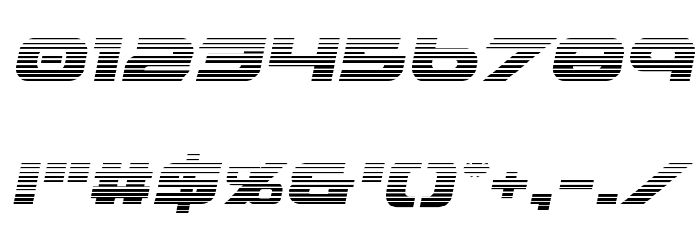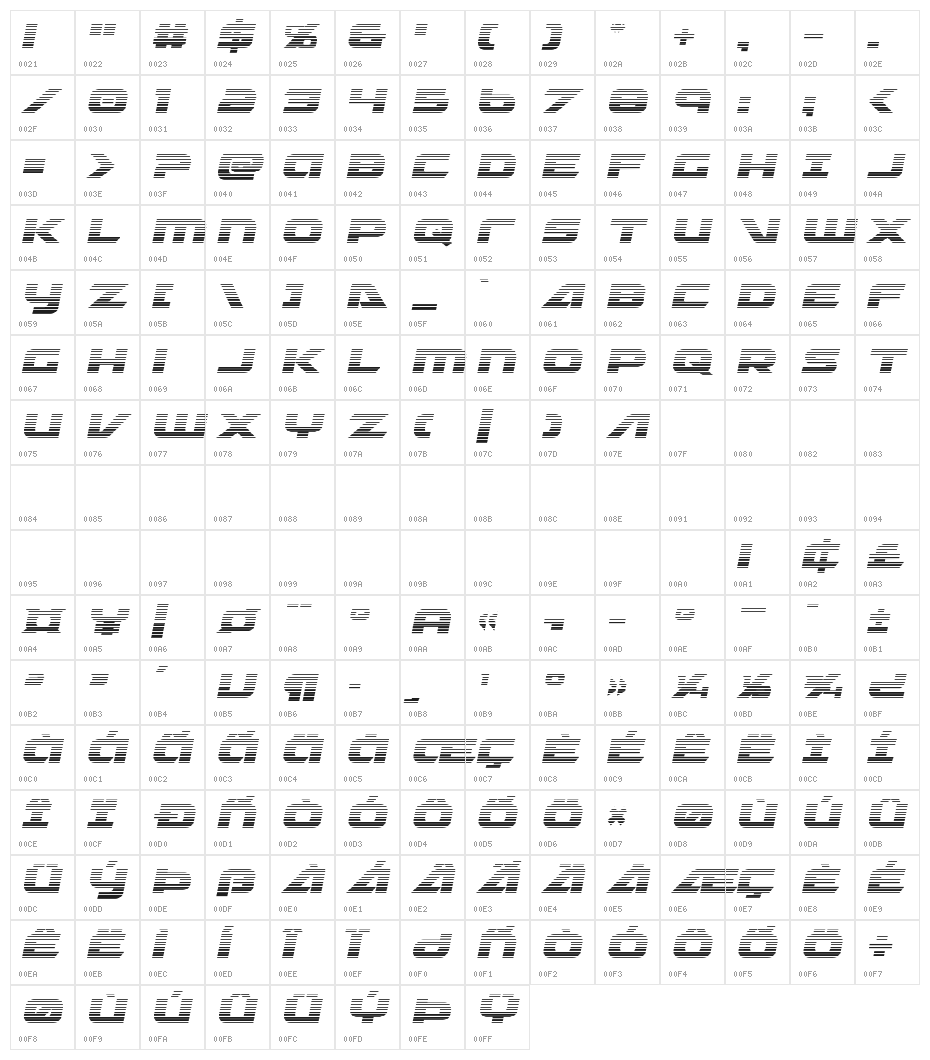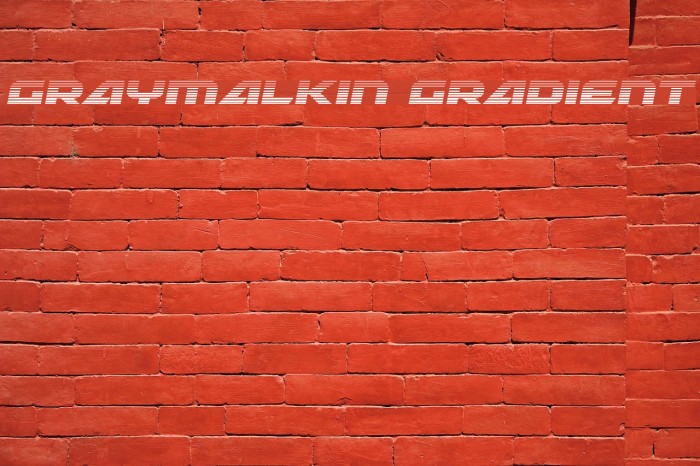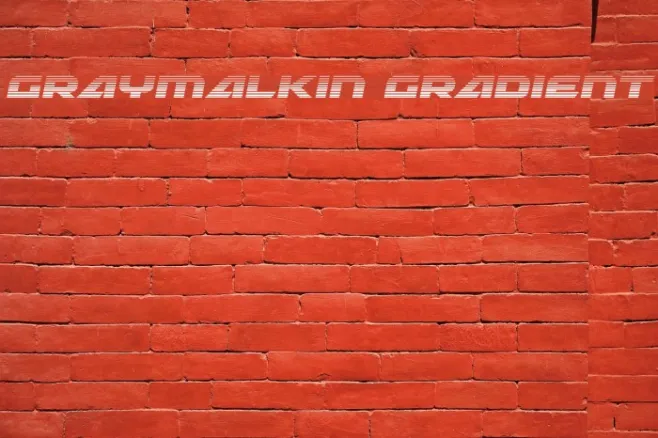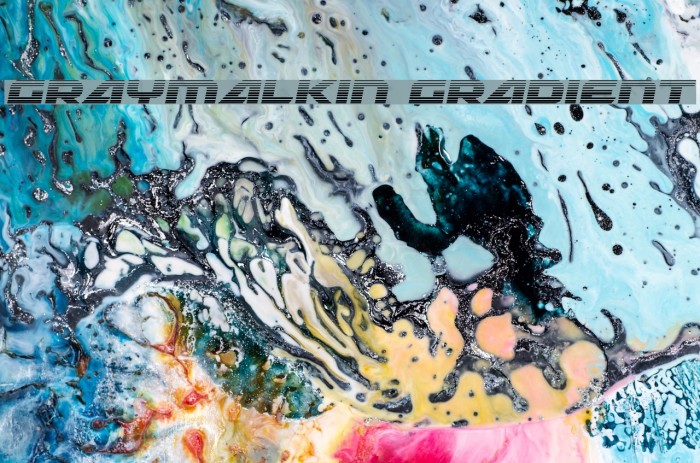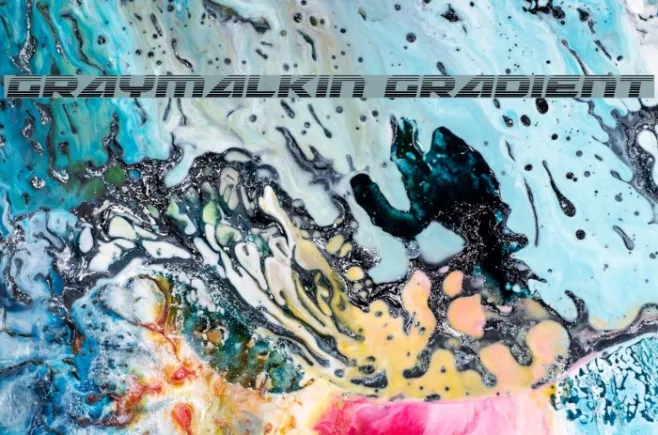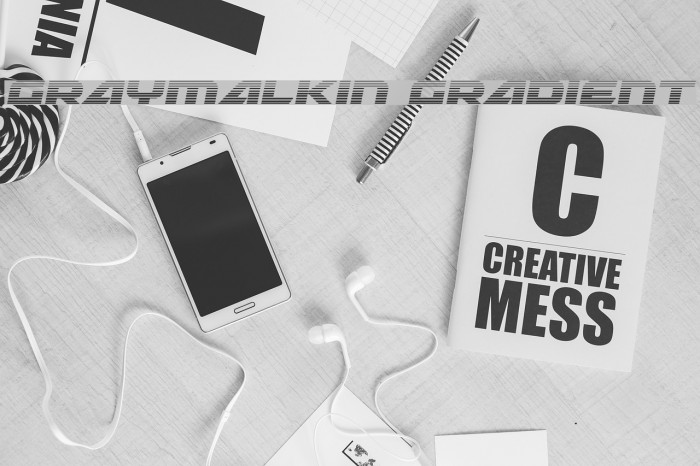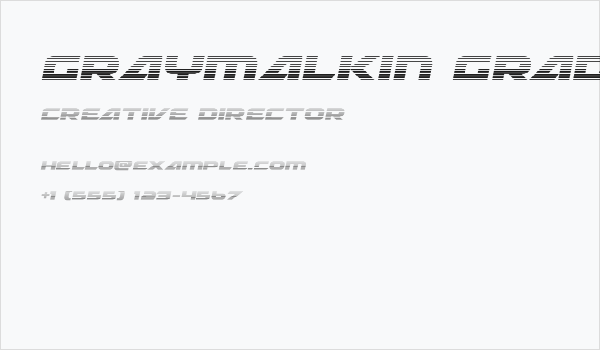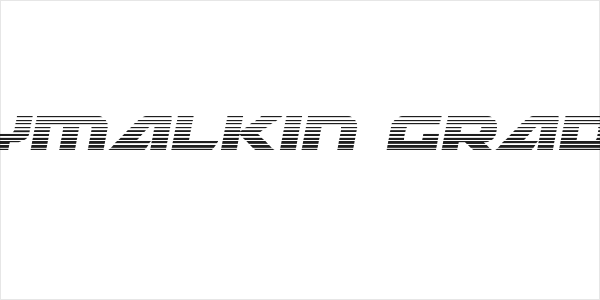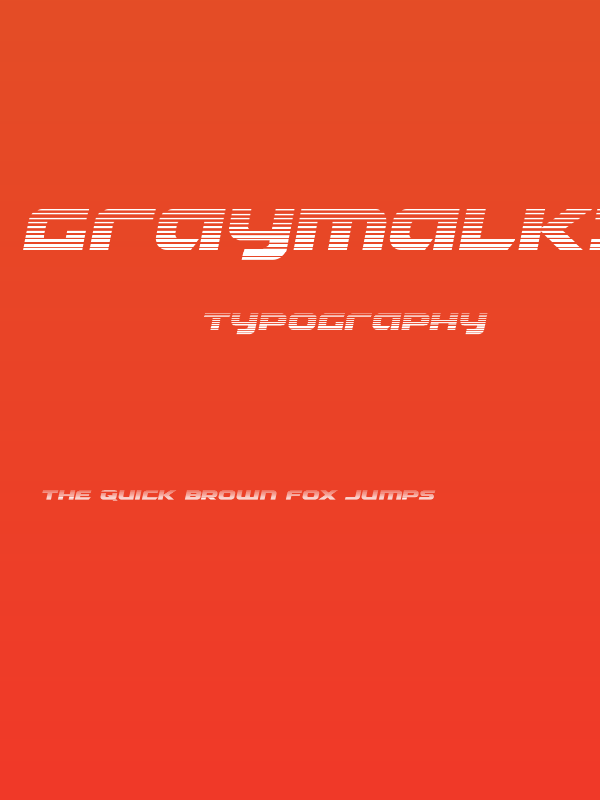
Graymalkin Gradient Font
Graymalkin Gradient Description
This font features a futuristic and dynamic design characterized by horizontal lines that create a gradient effect across each character. The letters are bold and angular, with a distinct slanted orientation that adds a sense of motion and speed. The geometric shapes are consistent throughout, giving it a cohesive and modern appearance. The use of lines within each character adds texture and depth, making it stand out in digital and print media. This font is ideal for projects that require a strong visual impact and a contemporary feel.
| Use Case | Headlines, Logos, Digital media |
| Proposed Projects | Ideal for sci-fi themed designs, technology branding, video game titles, and modern advertising campaigns. |